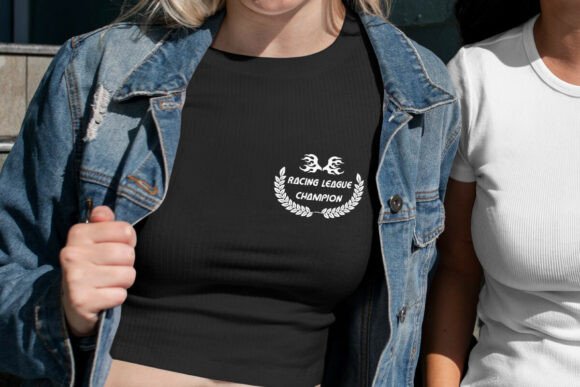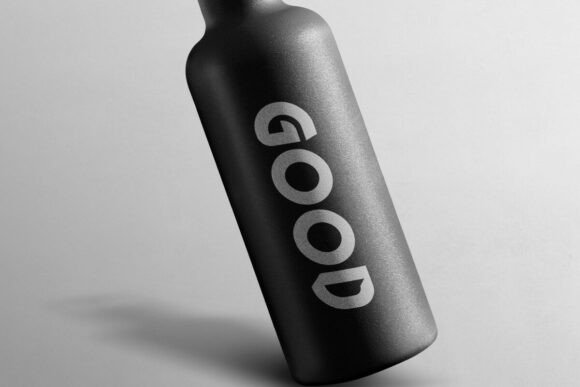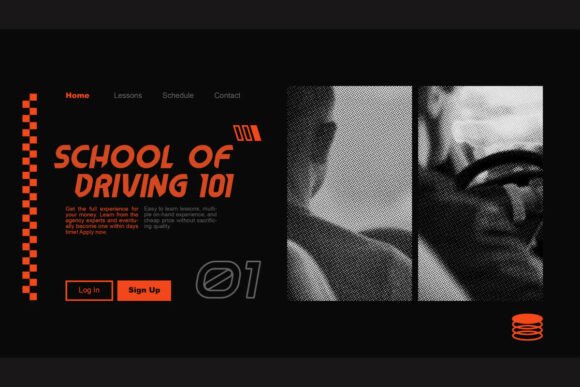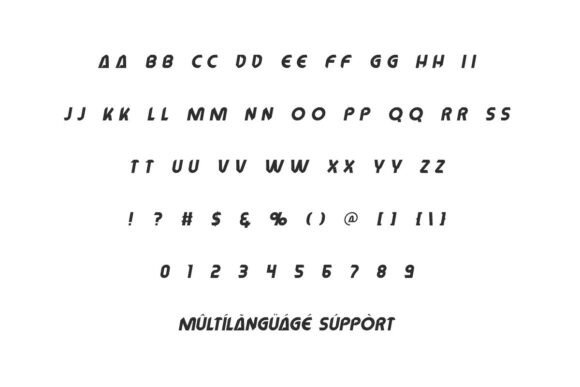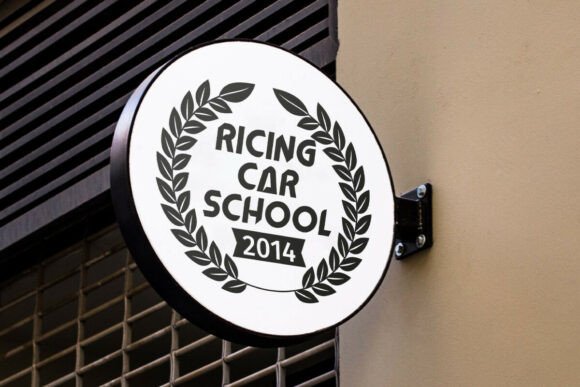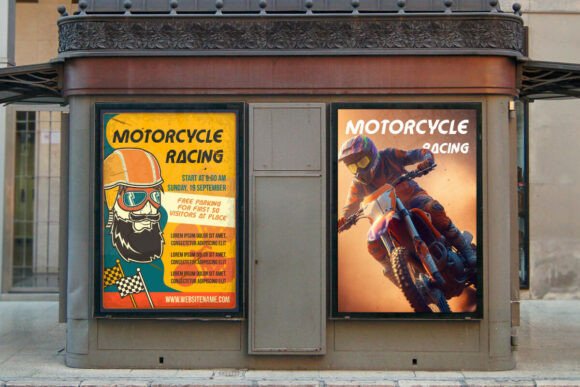
Introduction to Grand Speed Font
Grand Speed is a cool display font with a racing theme.
Its quirky, bold and slightly slanted shape makes this font stand out firmly It would be perfect for automotive posters, branding, game covers, headlines, logos, product labels, signage, stickers, t-shirt designs, titles, websites, and other creative projects.